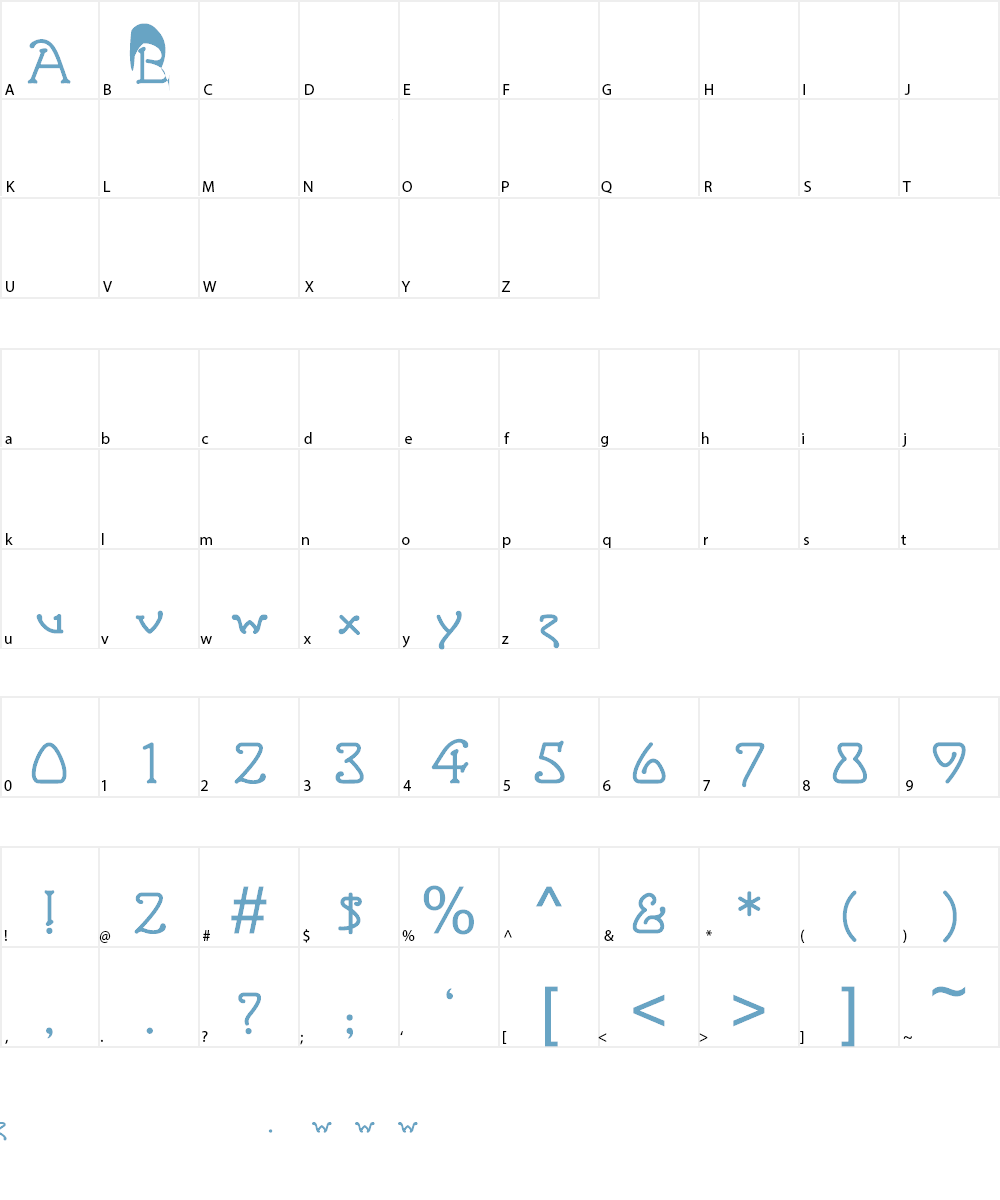
Here’s a revival of an old favorite of mine, a kind of on-the-cusp-between Art Nouveau and Art Deco font called Greetings Monotone. I used the original on a menu project several years ago, and the client referred to it as “the grasshopper font.” I liked the name, and it stuck.